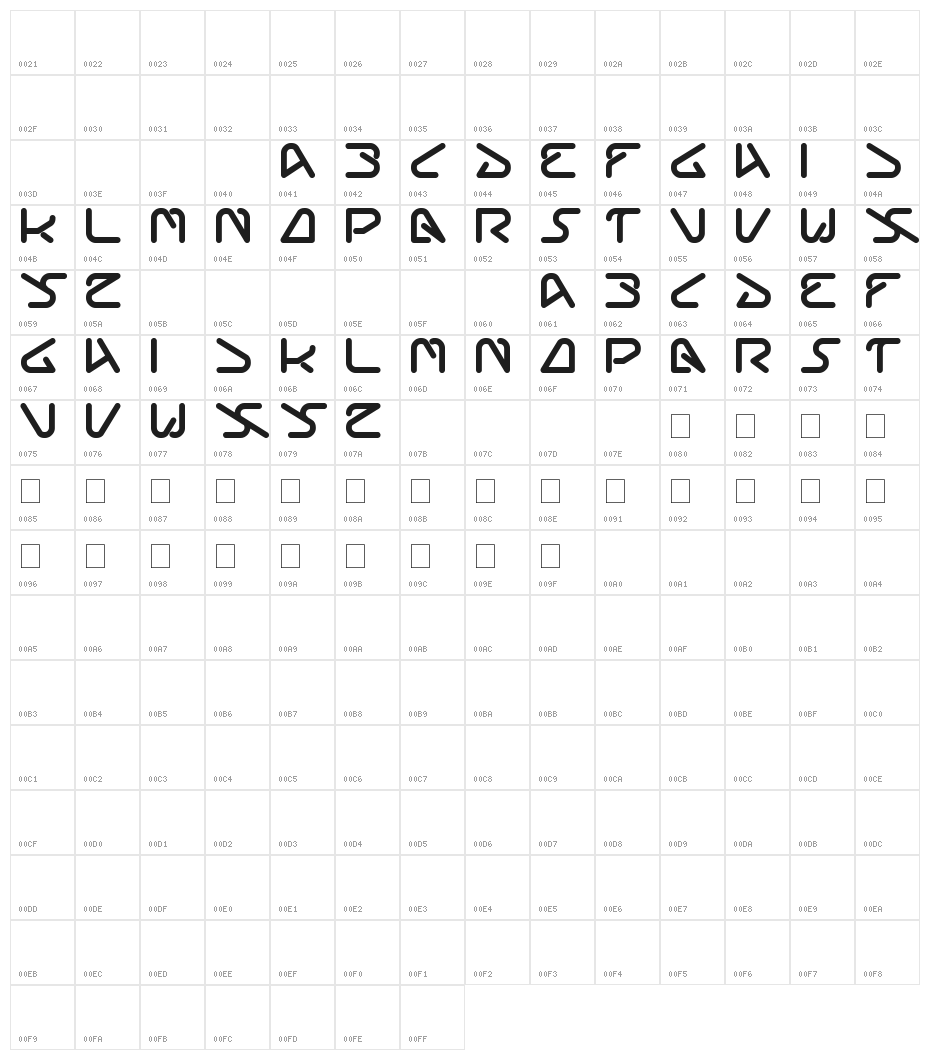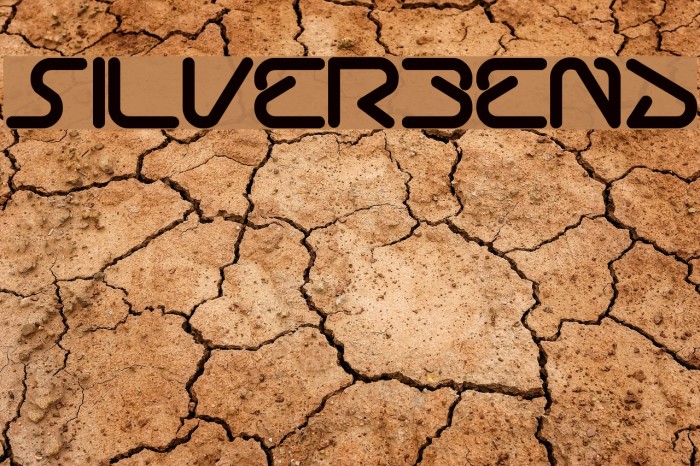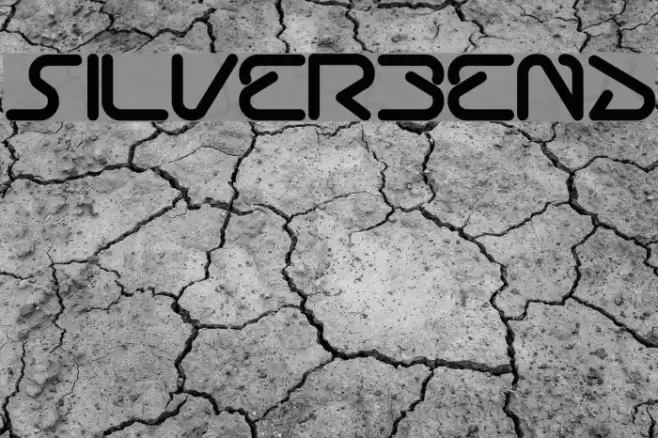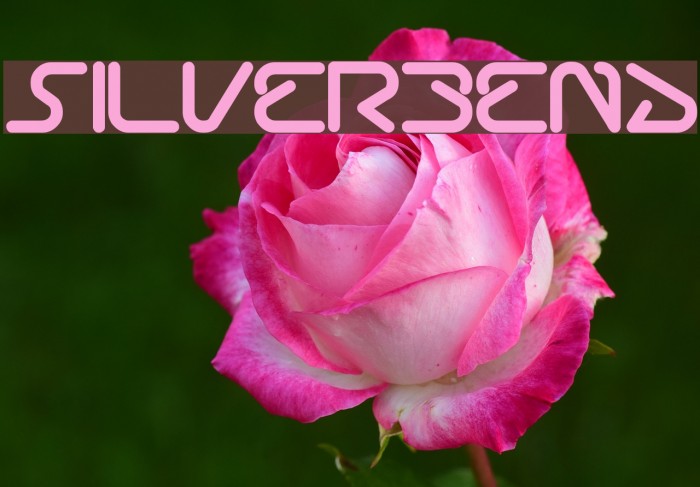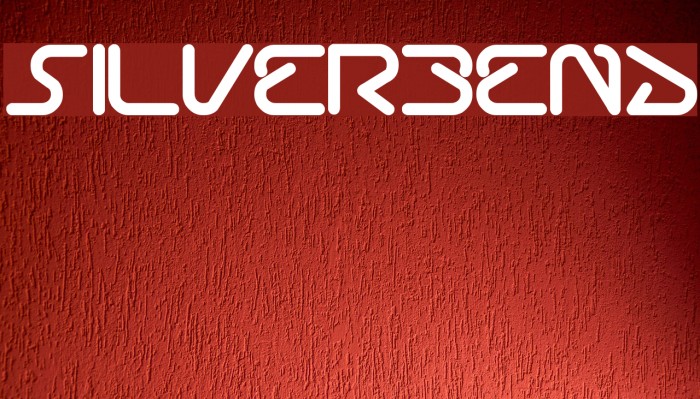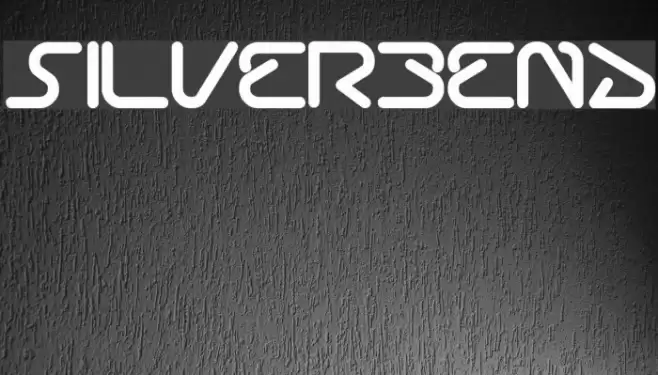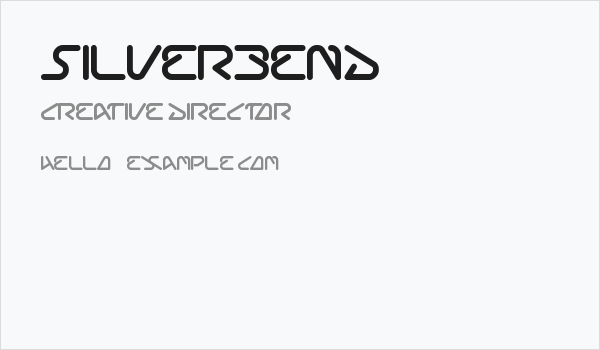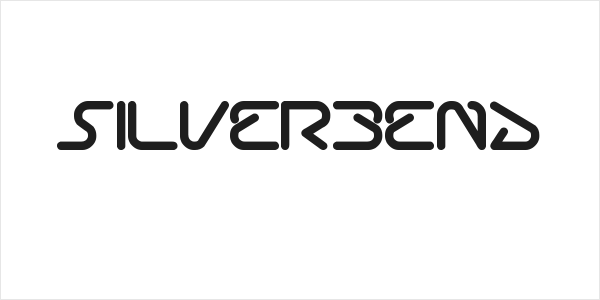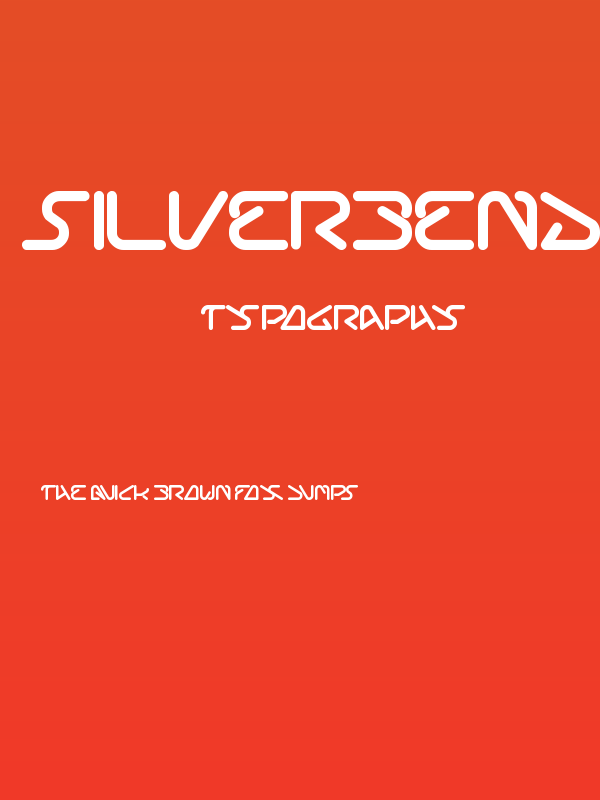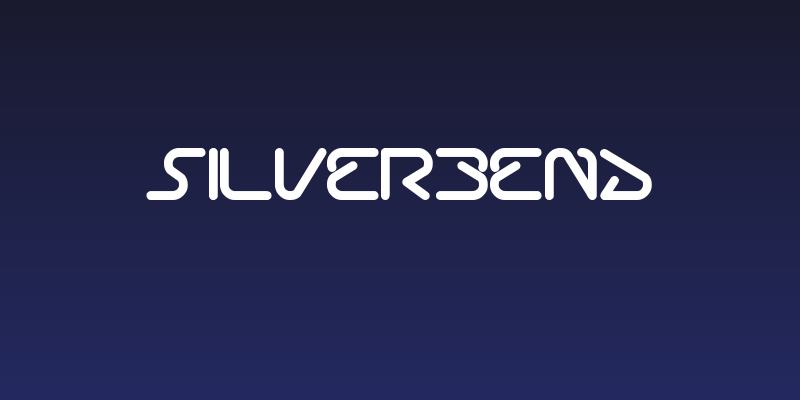
silverbend Font
silverbend Description
This font features a futuristic and geometric design, characterized by its rounded edges and distinct cut-out sections within each letterform. The characters are constructed with a consistent stroke width, giving it a uniform appearance. The style is reminiscent of digital or sci-fi themes, making it suitable for modern and tech-oriented projects. The uppercase and lowercase letters maintain a cohesive look, while the numbers and special characters follow the same design principles, ensuring a harmonious overall aesthetic.
SILVERBEND UPPERCASE
SILVERBEND LOWERCASE
SILVERBEND OTHER CHARS
| Proposed Projects | Ideal for tech branding, sci-fi posters, digital interfaces, and modern logos. |